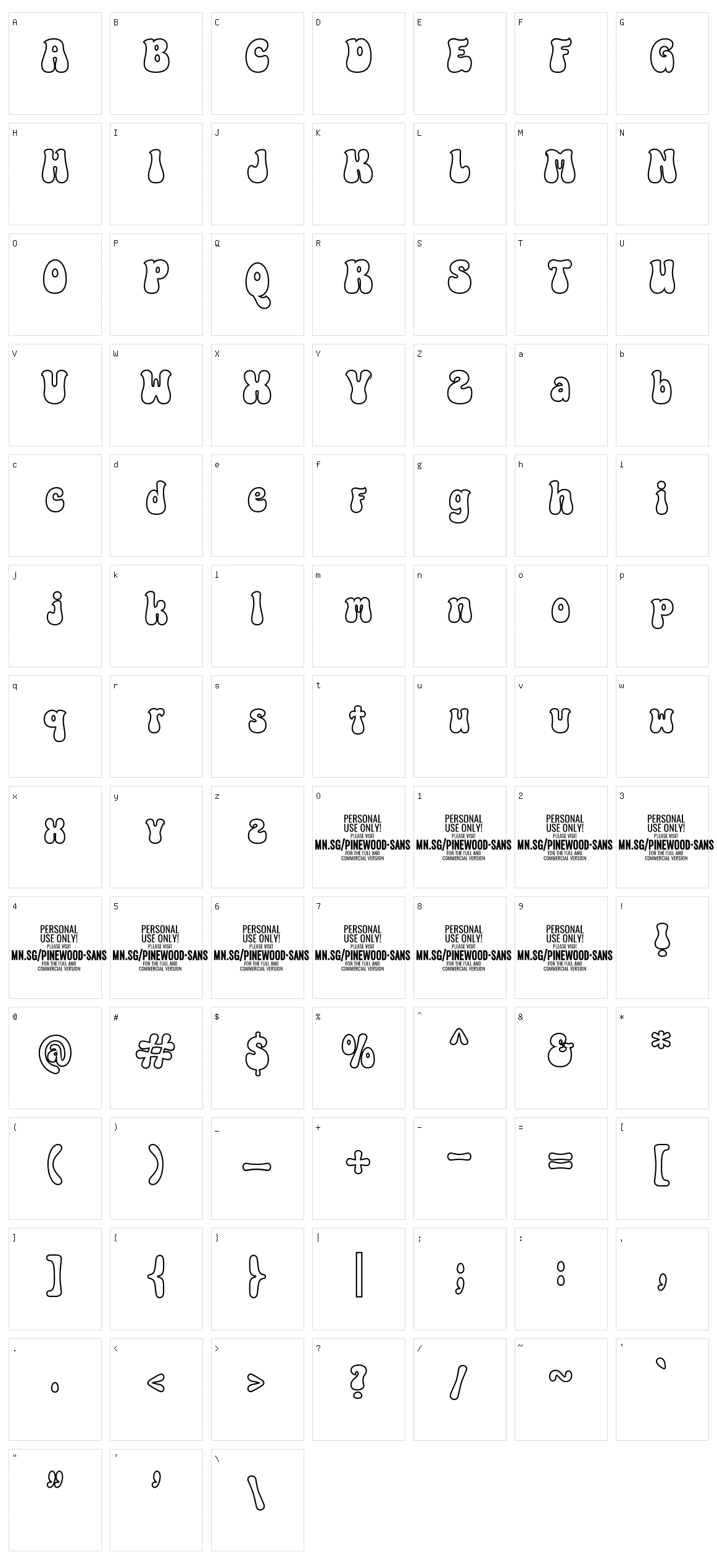
Pinewood Sans is a funky, bold, and playful typeface that encapsulates the retro, hippie spirit with a touch of graffiti and childish charm. This unique font brings a sense of fun and whimsy to your designs, making them perfect for parties, invitations, and other creative projects where a lighthearted vibe is desired.
The font comes in eight diverse styles, including Regular, Outline, Bold, and their italic versions, providing versatility and adaptability to various design needs.
The purpose behind creating Pinewood Sans was to fill a gap in the design world for a typeface that seamlessly blends nostalgia and modernity. By incorporating elements of vintage and contemporary styles, it allows designers to capture the essence of the past while still resonating with today's audience. Pinewood Sans is a testament to the importance of preserving the visual language of different eras, ensuring that their spirit can live on and continue to inspire new generations of designers and creatives.
The font is built with advanced OpenType functionality and has a guaranteed top-notch quality, containing stylistic and contextual alternates, ligatures, and more features; all to give you full control and customizability. It has extensive lingual support, covering all Latin-based languages, from Northern Europe to South Africa, from America to South-East Asia. It contains all characters and symbols you'll ever need, including all punctuation and numbers.